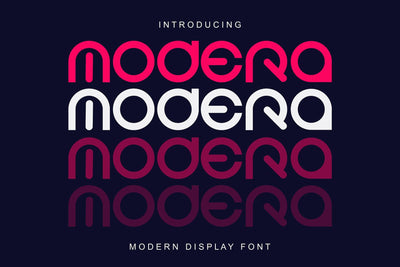
Modera - Geometric Modern Typeface
Modera is a modern rounded display font designed for bold branding, stylish headlines, and clean contemporary visuals. Built from smooth geometric shapes and carefully balanced proportions, it brings a sleek, confident personality to any design. The rounded corners and fluid curves give Modera a friendly, approachable feel, while the overall structure stays strong and professional, making it perfect for modern brands and digital projects.
This font includes uppercase and lowercase letters, numbers, punctuation, multilingual support, ligatures, and stylistic alternates, giving you all the tools you need to create unique and polished typography. The ligatures and alternates help you refine letter combinations, create custom-looking logotypes, and add subtle variation to repeated characters so your text feels more crafted and intentional.
Modera works especially well for:
- Logo design and wordmarks
- Fashion, music, and lifestyle branding
- Posters, flyers, and title typography
- Packaging for tech, cosmetics, and premium products
- Website headers, app UI, and social media graphics
Its geometric construction makes it easy to align with grids and modern layouts, while its rounded shapes add softness and visual flow. The font is strong enough to stand alone as a main title, yet simple enough to combine with other typefaces in more complex systems.
If you’re building a visual identity that needs to look fresh, modern, and design-forward, Modera is a reliable choice. It feels current without being tied to a short-lived trend, so your branding and layouts can stay relevant for a long time.